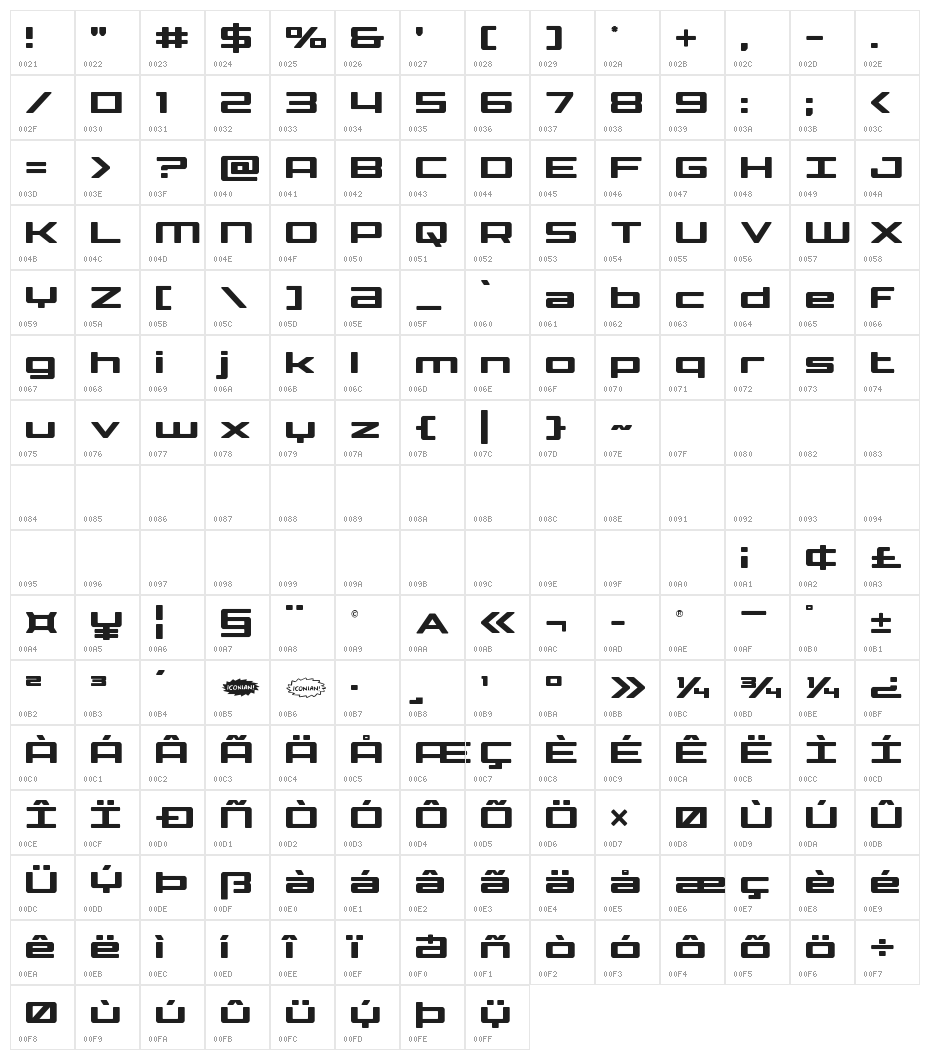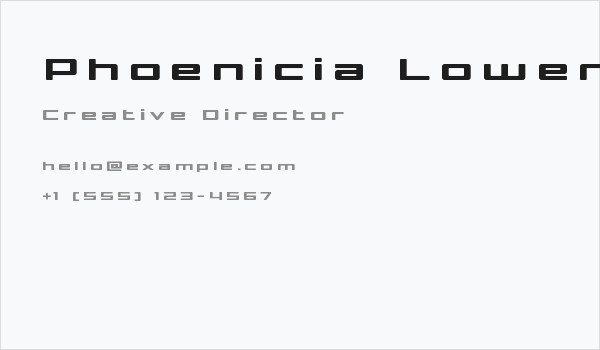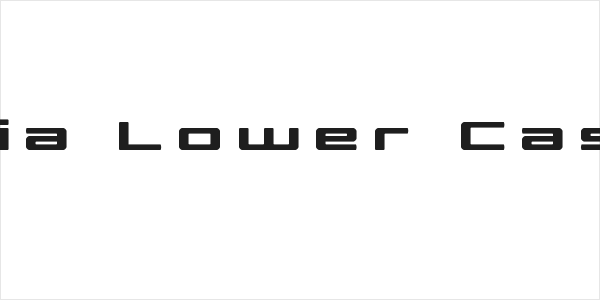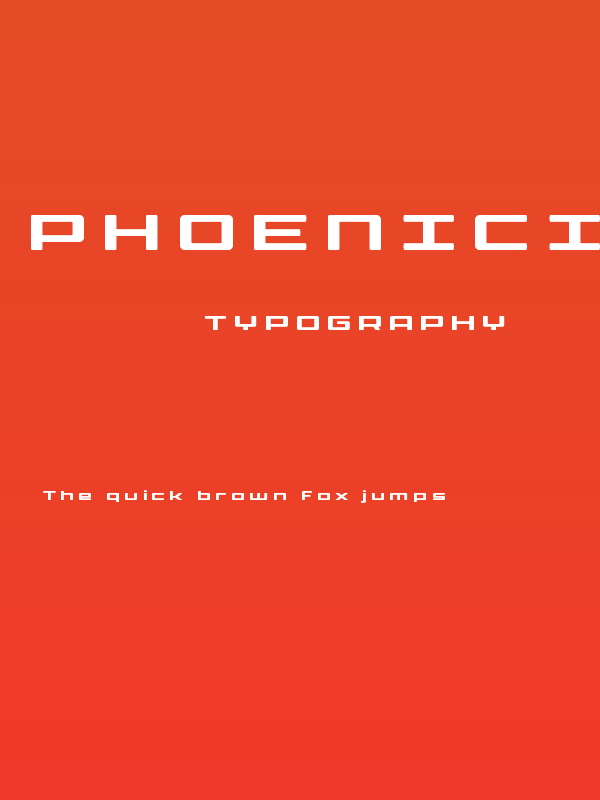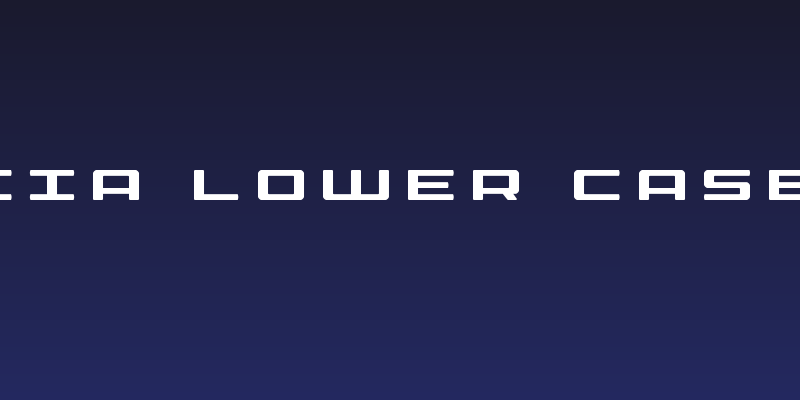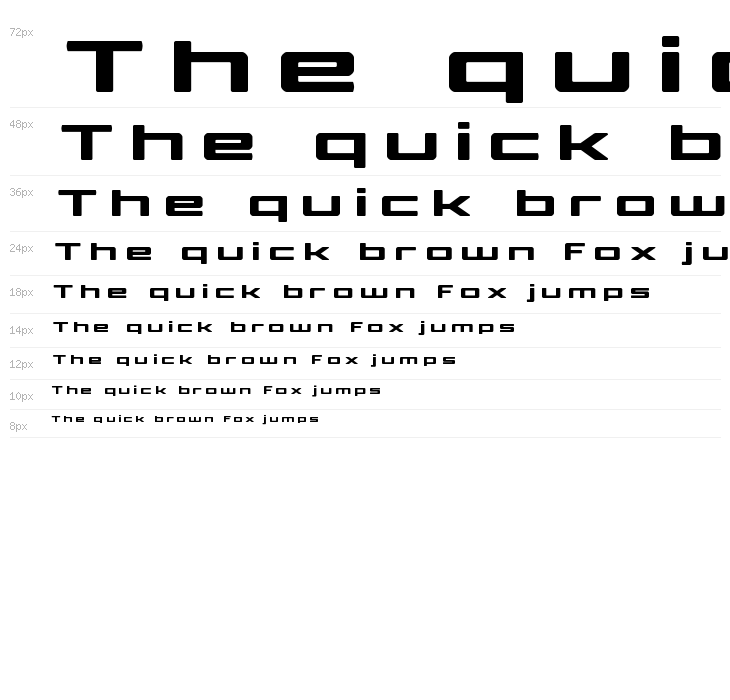
Phoenicia Lower Case Ttitle Font
Phoenicia Lower Case Ttitle Description
This font features a modern, geometric design with clean lines and a structured appearance. The characters are uniform in width, creating a balanced and cohesive look. The uppercase letters are bold and assertive, while the lowercase letters maintain a consistent style with slightly softer edges. The numerals are clear and easy to read, matching the overall aesthetic of the font. Special characters are designed with the same attention to detail, ensuring they integrate seamlessly with the rest of the character set. This font is ideal for projects that require a contemporary and professional feel.
| Use Case | Headlines, Logos, Digital Interfaces |
| Proposed Projects | Ideal for branding, digital interfaces, and modern print materials. |